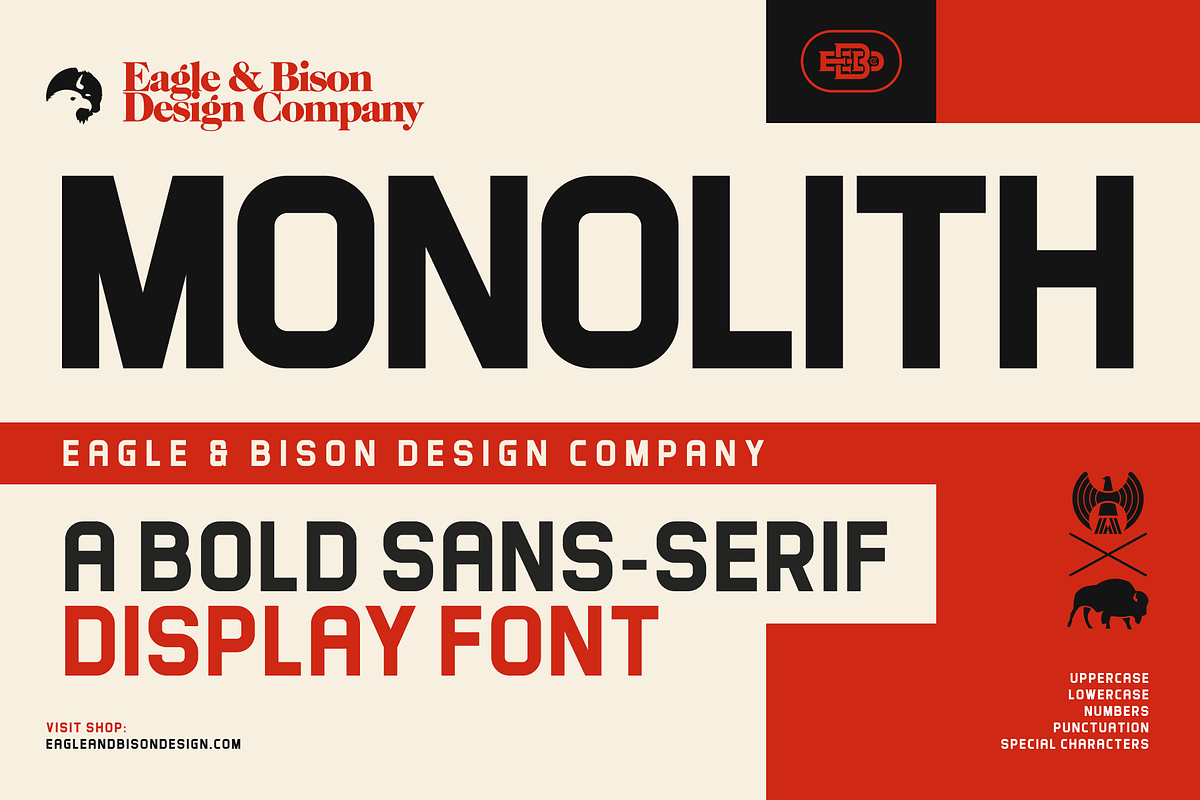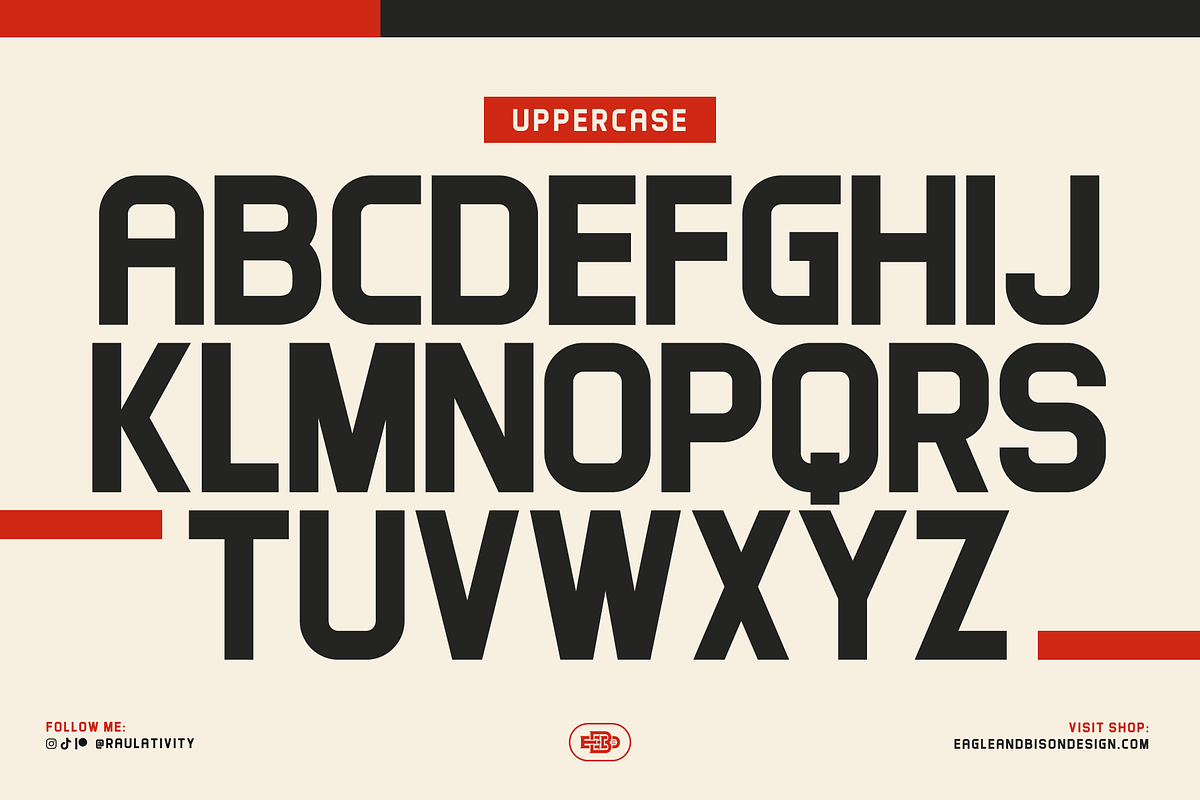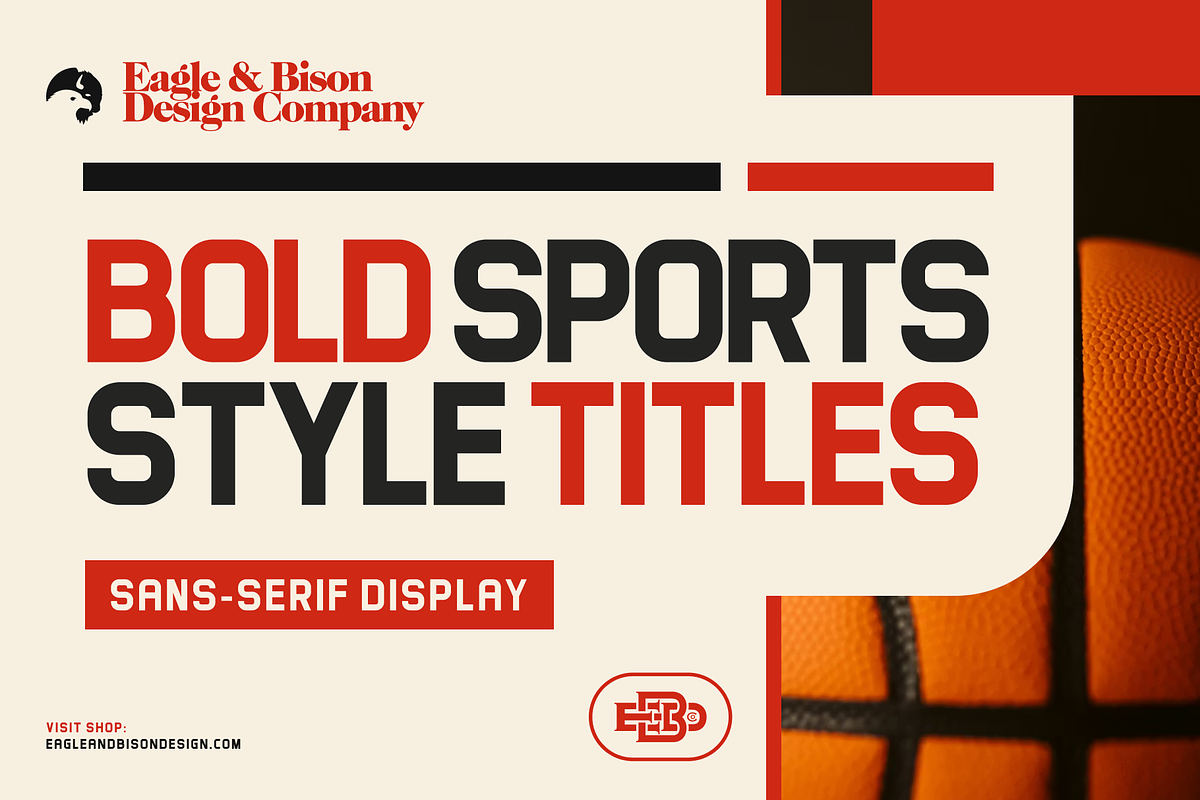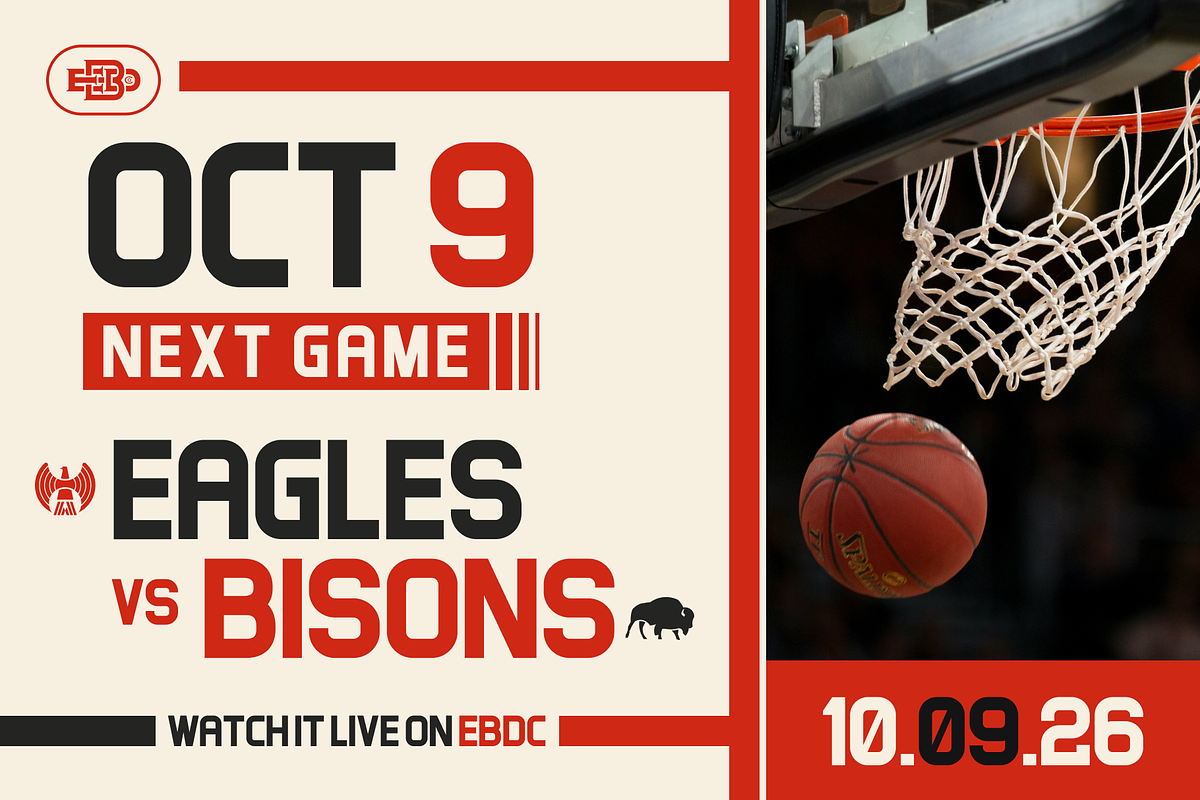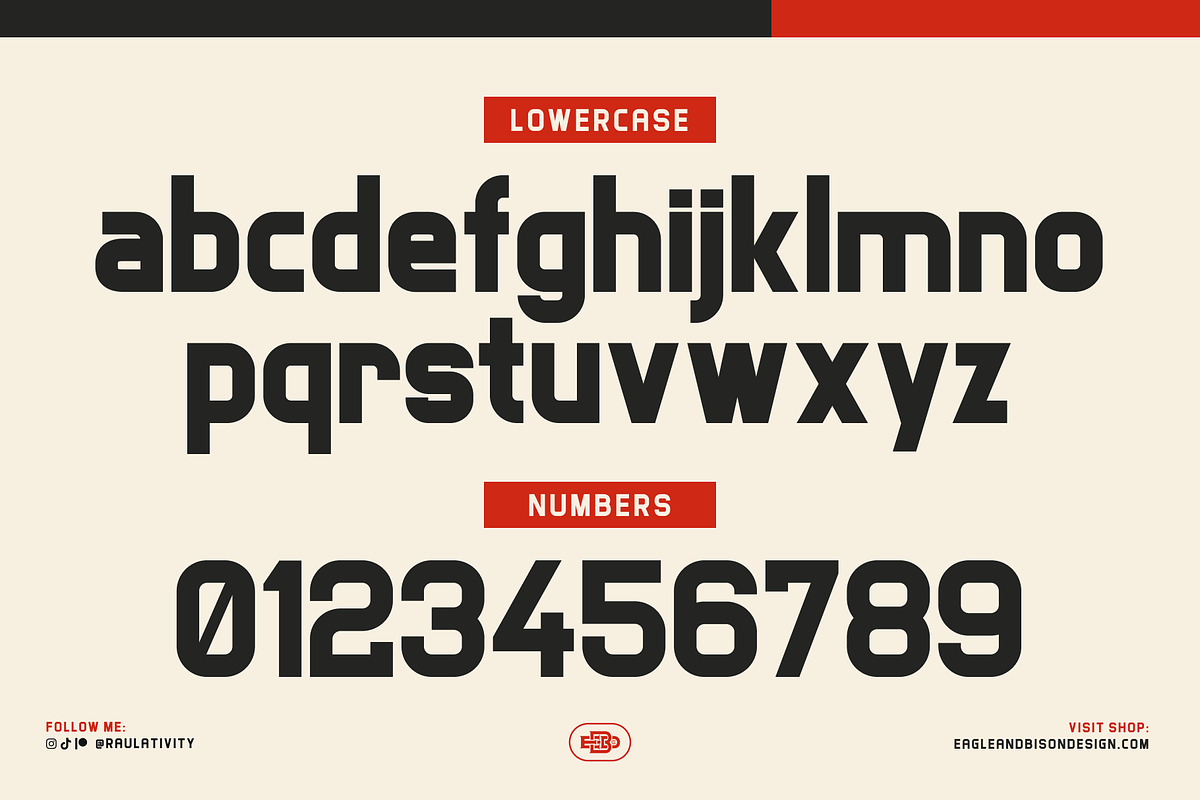
Monolith
Monolith is a bold sans-serif display font built for impact. Its strong, blocky letterforms make it perfect for sports graphics, headlines, posters, branding, and social content that needs to stand out. The font includes uppercase, lowercase, numbers, punctuation, and special characters, giving you a total of 109 characters to work with. Designed to feel modern, powerful, and clean,
Monolith performs best at large sizes where its structure and weight can really shine. The wide proportions and confident shapes give your layouts a solid, grounded presence while keeping everything sharp and readable. Whether you are designing for teams, events, apparel, or promotional campaigns, Monolith brings energy and clarity to every composition.